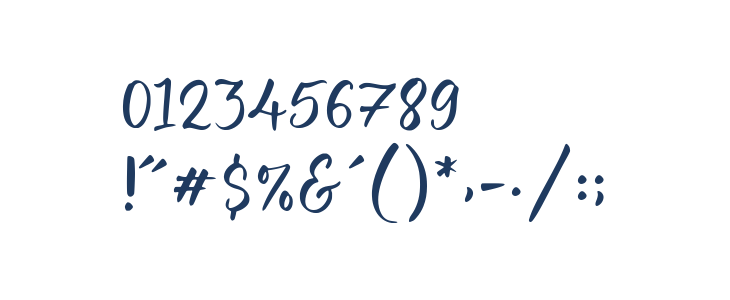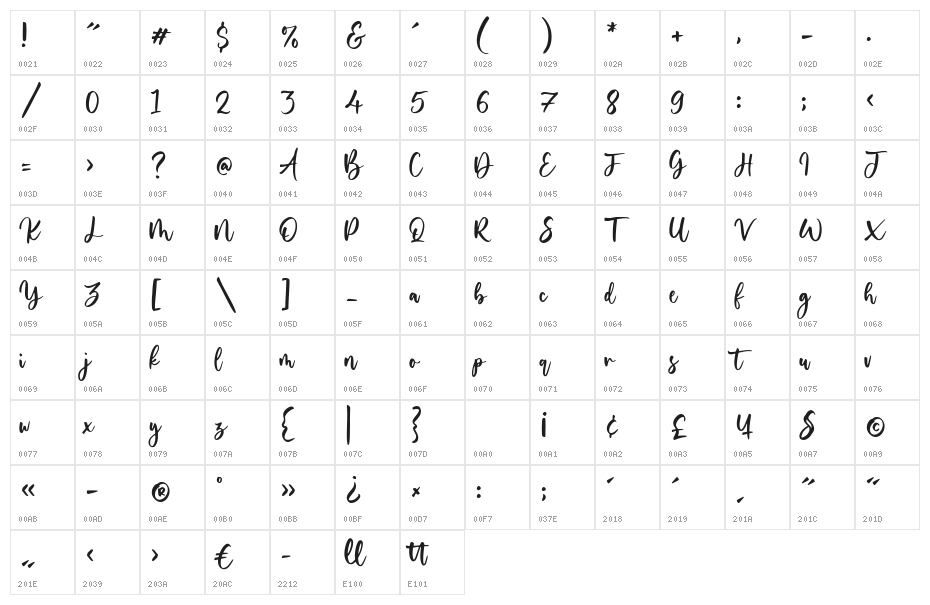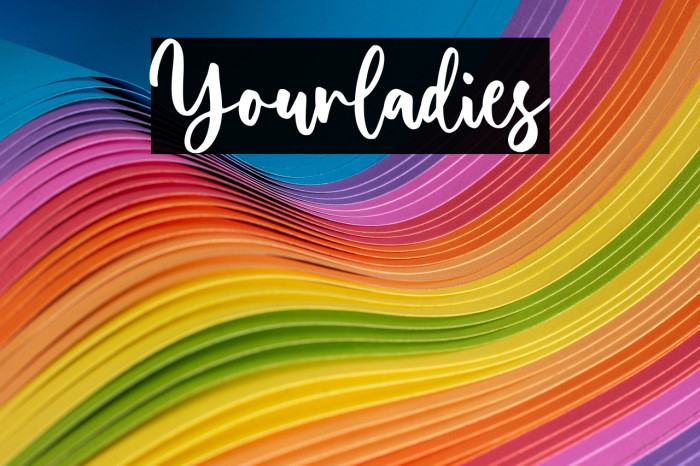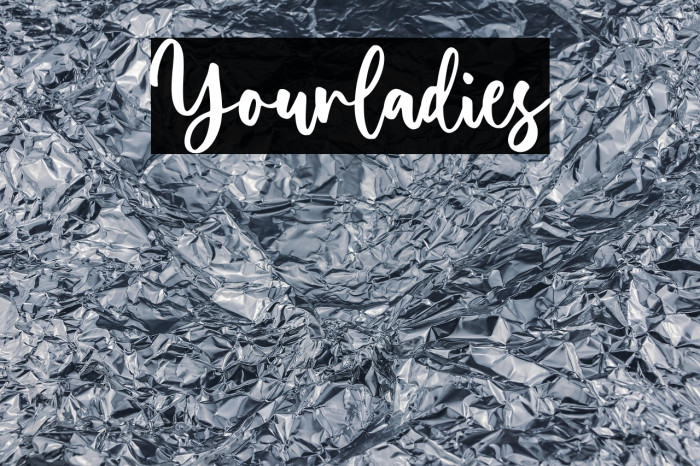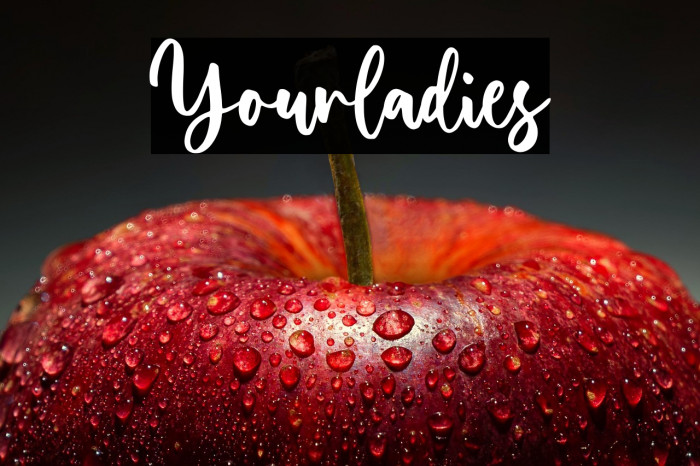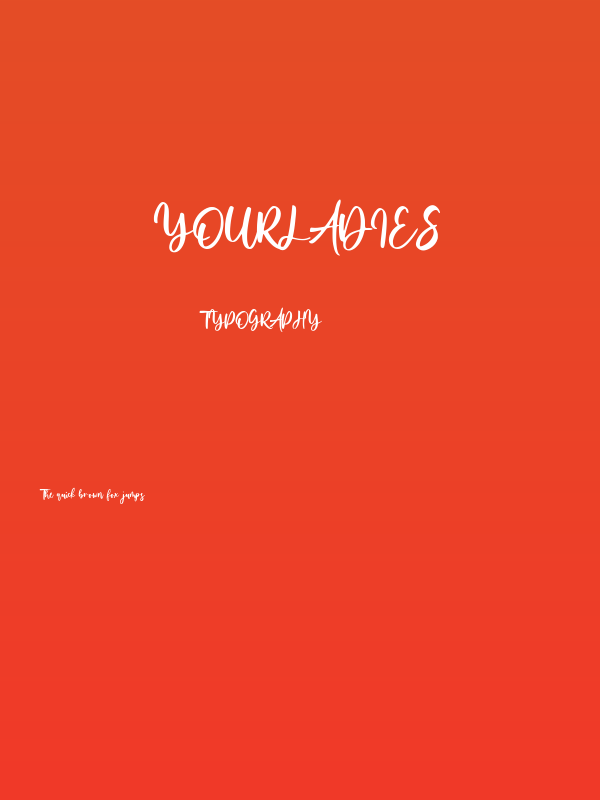
Yourladies Font
Yourladies Description
This font features a lively and expressive handwritten style, characterized by its flowing, cursive letterforms. The uppercase letters are bold and dynamic, with a playful flair that adds personality to any text. The lowercase letters maintain a consistent rhythm, enhancing readability while retaining a casual elegance. Numbers and special characters are crafted with the same attention to detail, ensuring a cohesive look across all elements. The strokes are thick and consistent, providing a strong visual impact that is both modern and approachable.